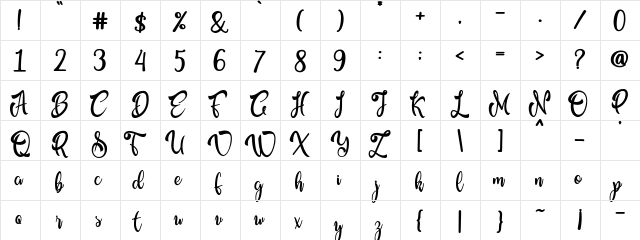
Villosofia Regular
| Designer | Arie Iskandar |
Design Context for Villosofia Typeface
Villosofia is a composed and adaptable typeface that performs quietly and consistently across a wide range of design contexts.